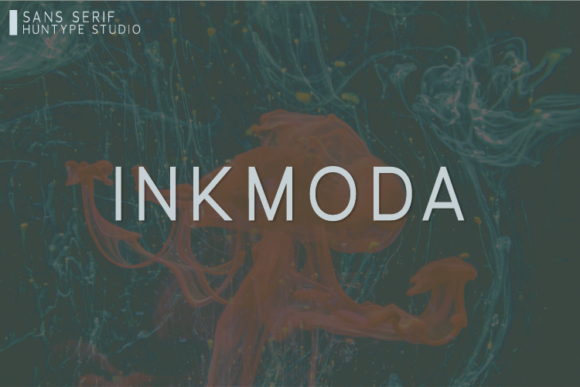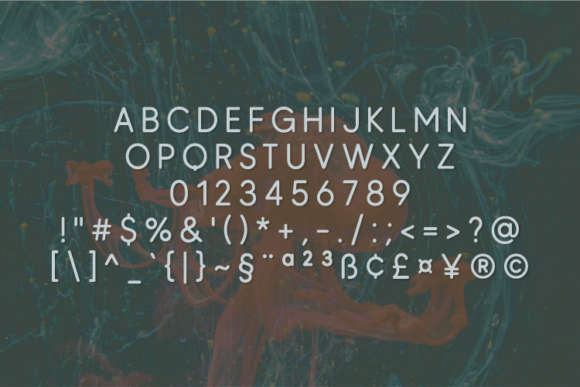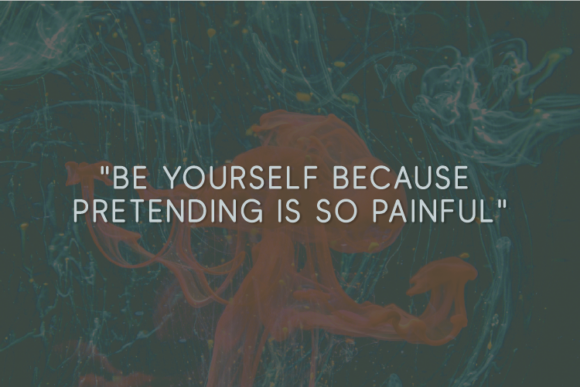
Inkmoda Font: Modern Sans Serif for Chic Branding & Logo Design
About the Inkmoda Font
The wait is over! The incredible Inkmoda Font is now available for your design toolkit. Inkmoda is a modern sans serif font that is readable, thin and stylish. It is perfect for fashion branding or editorial designs. Add it confidently to your projects, and you will love the results.
Inkmoda’s thin strokes and modern feel make it ideal for headlines, short text blocks in fashion magazines, or minimalist logos. It excels in branding projects requiring a sophisticated, yet approachable aesthetic. Avoid using it for body copy or lengthy paragraphs; its thin weight compromises readability at smaller sizes.
Consider pairing Inkmoda with a warm, slightly rounded serif like Playfair Display for a touch of classic elegance, or a geometric sans-serif like Futura for a more contemporary, streamlined look. A contrasting script font, such as Allura, could add a handwritten element for invitations or packaging.
Inkmoda projects a clean, modern, and subtly elegant personality. It’s best suited for brands and projects that value simplicity, sophistication, and a touch of understated luxury.
Inkmoda Font Usage Examples
Inkmoda Font Example